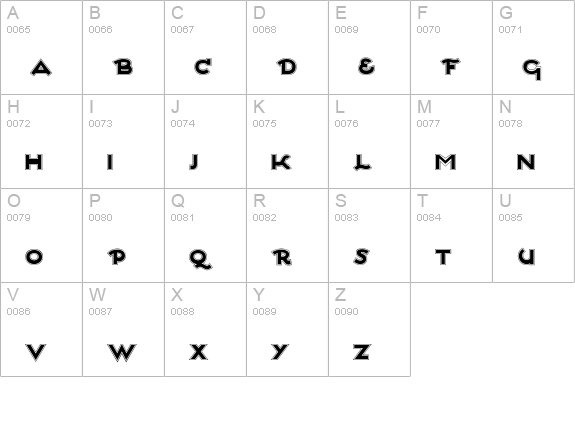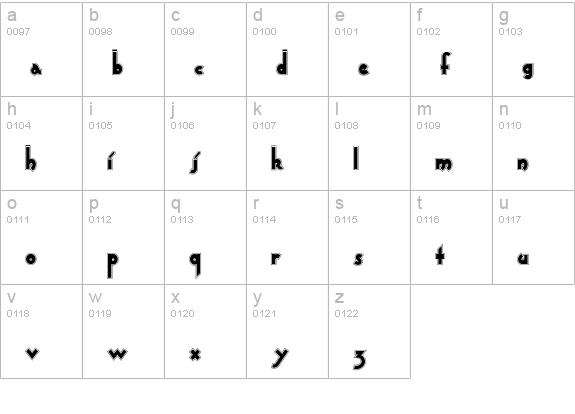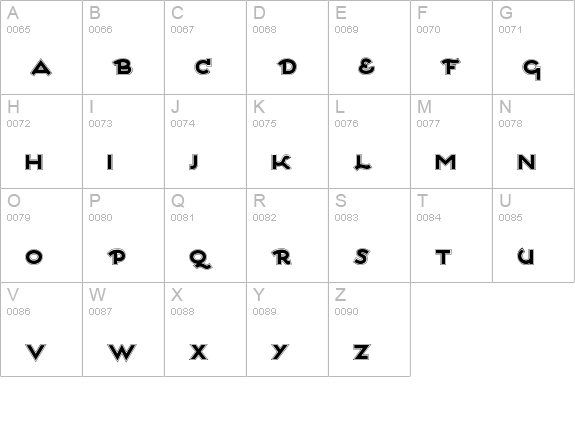
CaptainSwabby Font Details
CaptainSwabby is a whimsical and playful font that brings a touch of adventure to your design projects. With its charming and swirly letterforms, this font captures the spirit of a daring sea captain exploring uncharted waters. Perfect for adding a touch of nautical charm to invitations, posters, logos, and more, CaptainSwabby is sure to make a splash in your creative endeavors. Best of all, CaptainSwabby is available for free download at FontsMarket.com. So set sail on your design journey with this delightful font and let your imagination run wild!